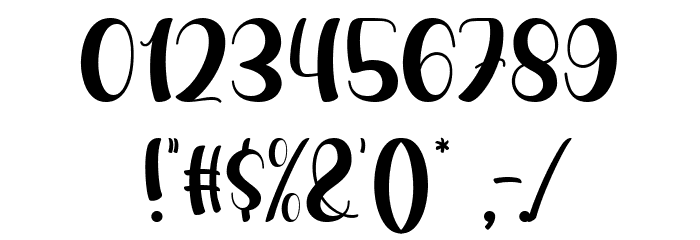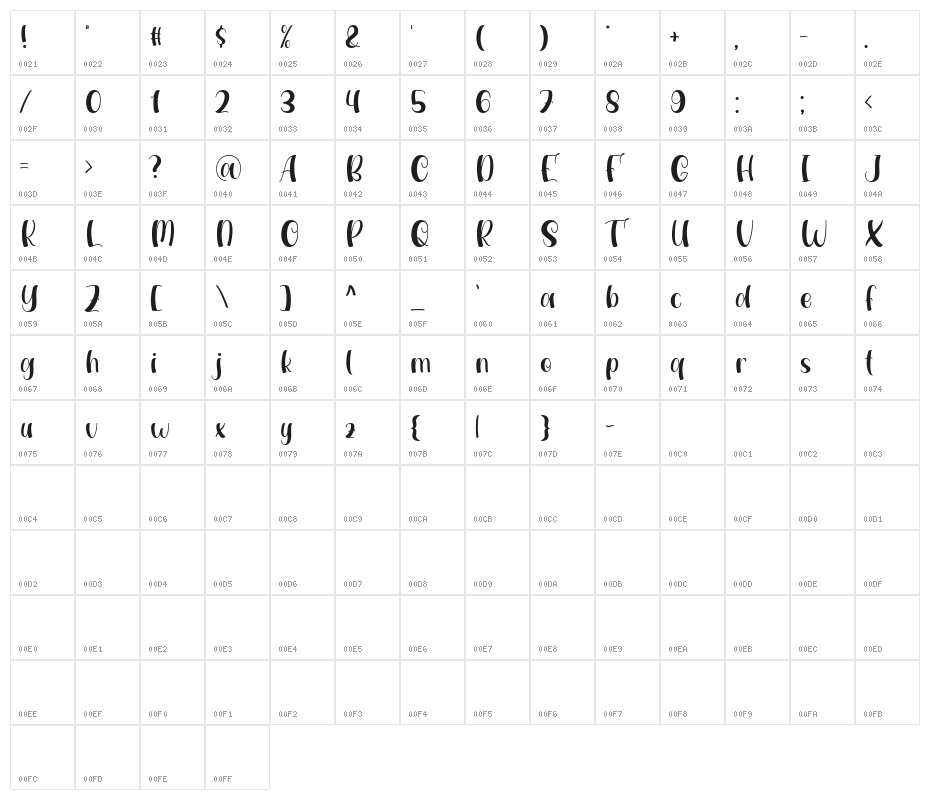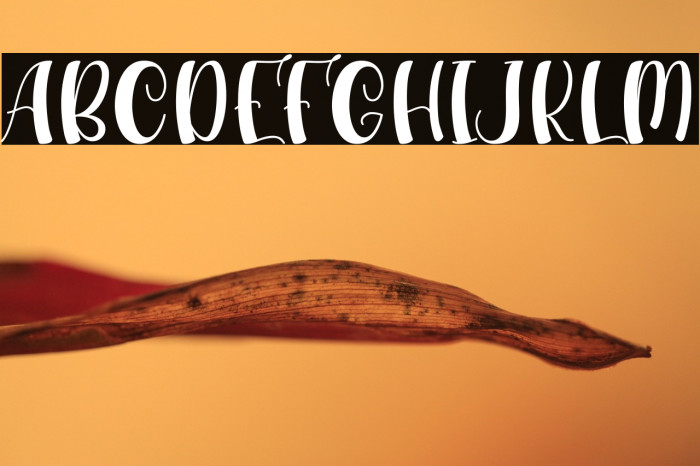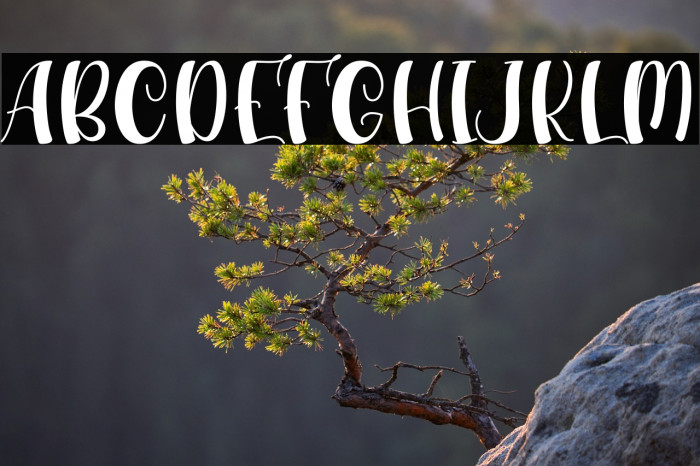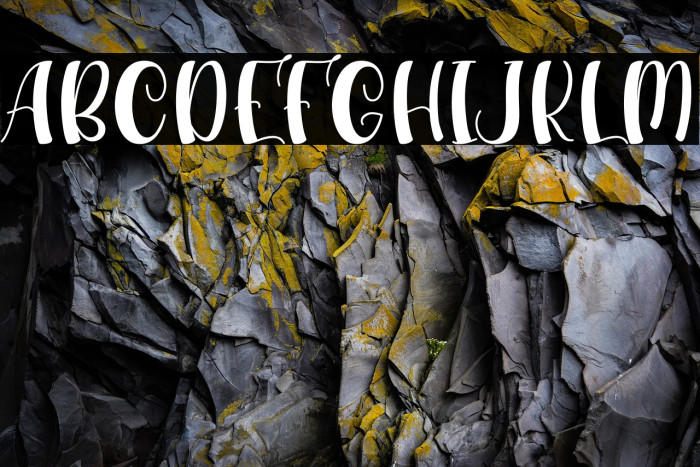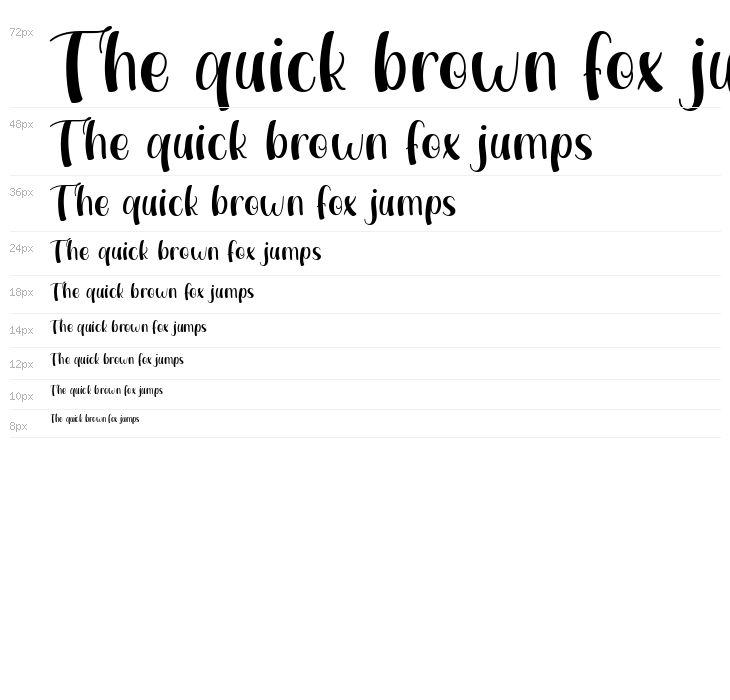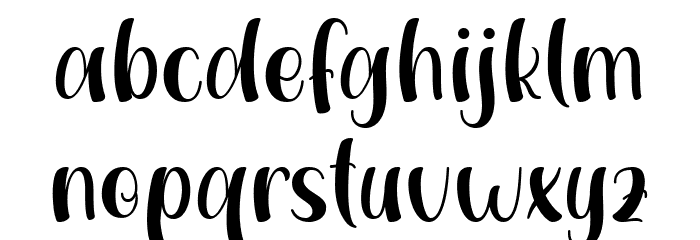
Seshila Font
Seshila Description
This font features a bold and expressive style with a playful and artistic flair. The characters are crafted with a mix of thick and thin strokes, creating a dynamic and lively appearance. The uppercase letters exhibit a unique blend of curves and sharp edges, while the lowercase letters maintain a consistent flow with slight variations in stroke width. The numerals and special characters are designed to complement the overall aesthetic, adding to the font's versatility. This font's distinctive style makes it suitable for creative projects that require a touch of elegance and whimsy.
| Proposed Projects | Ideal for branding, posters, invitations, and artistic projects. |